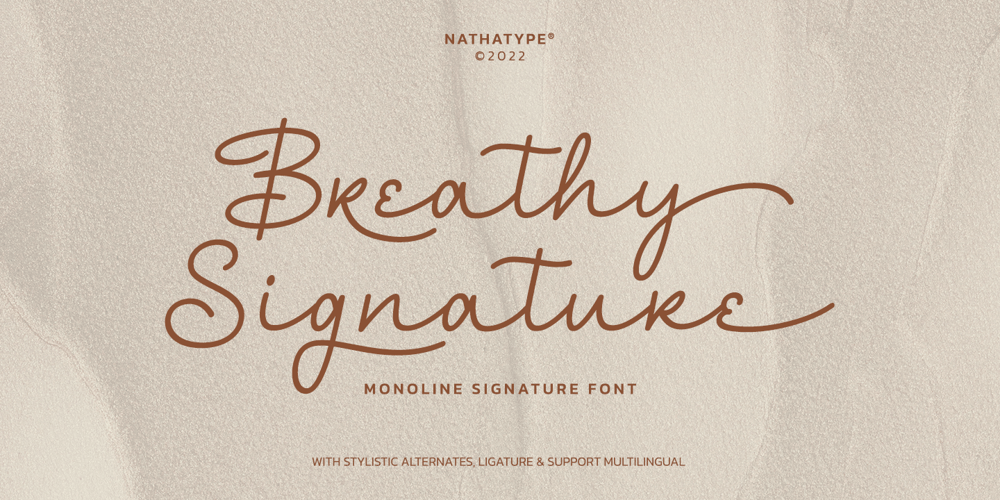
Breathy Signature Font Family was designed by Donis Miftahudin and published by Nathatype. Breathy Signature contains 1 styles and family package options. Reveal your very best design result that makes everyone brainstorming easily with Breathy Signature. It’s a versatile monoline signature font. The brushstrokes and curves style applied to the characters that resemblance to actual handwriting gives this font natural yet elegant feels. This font also easy to read and will look great in a variety of sizes. Features: Stylistic Sets Ligatures Swashes Numerals and Punctuations PUA Encoded It can be used for many design projects, such as poster, logo, book cover, branding, heading, printed product, merchandise, quotes, social media campaign, etc. Get more inspiration about how to use it by seeing the font preview.Thank you for purchasing our fonts. Please don’t hesitate to contact us, if you have any further question or issues. We’re happy to help. Happy Designing.